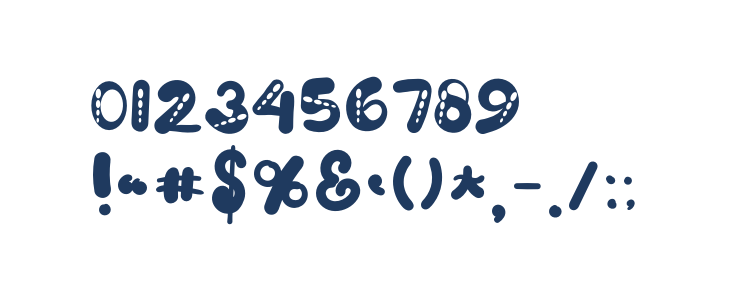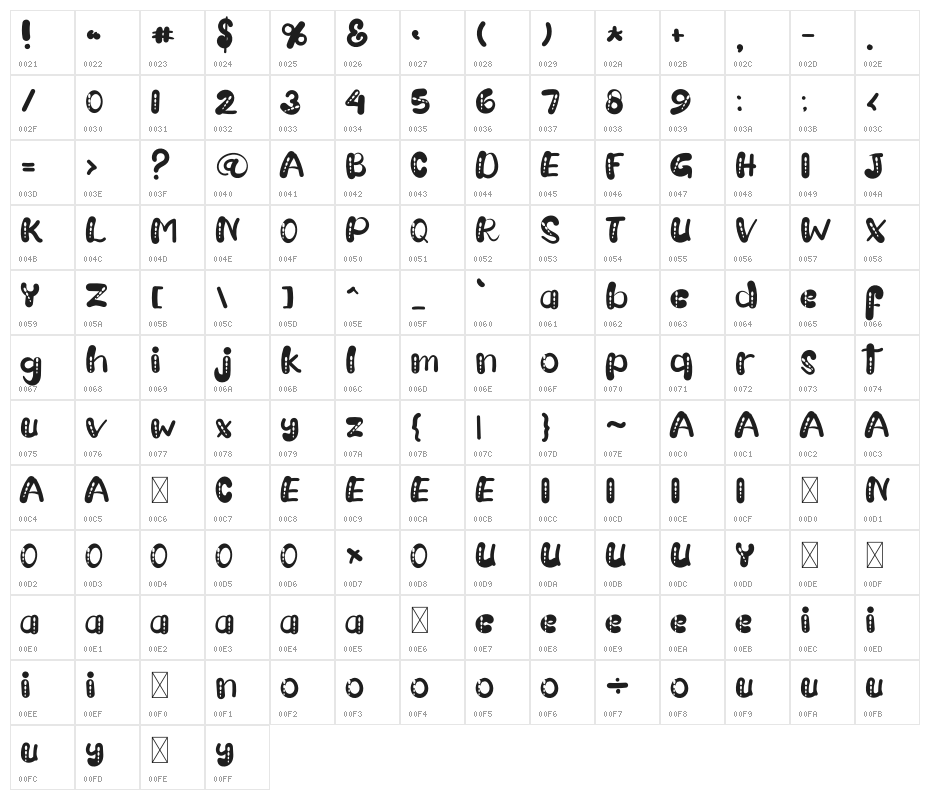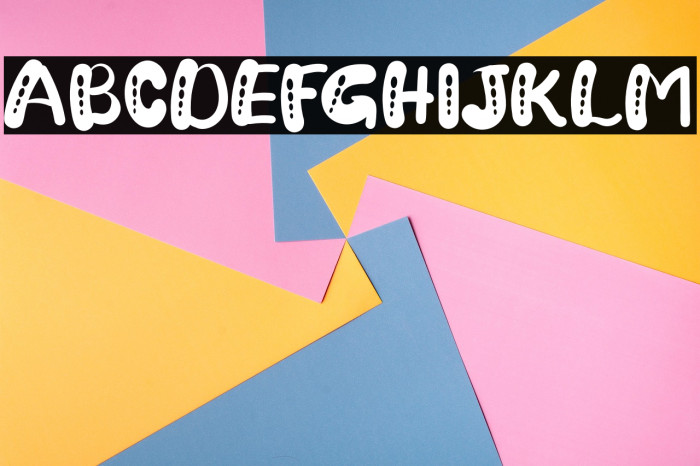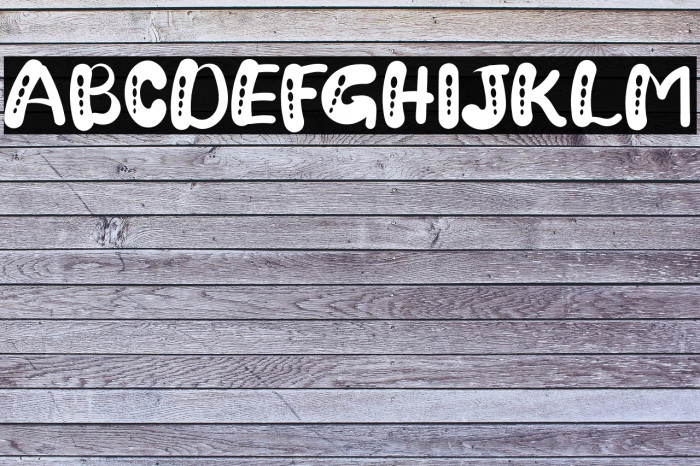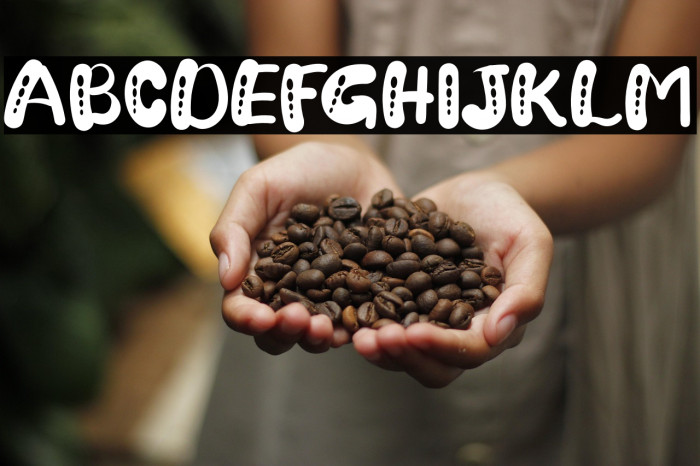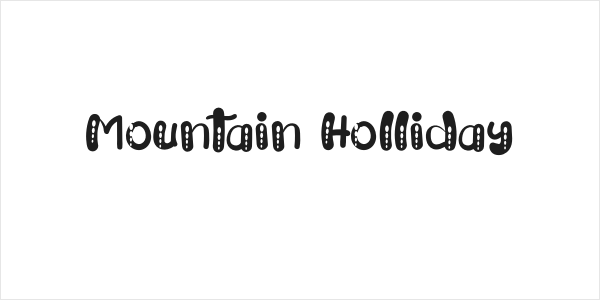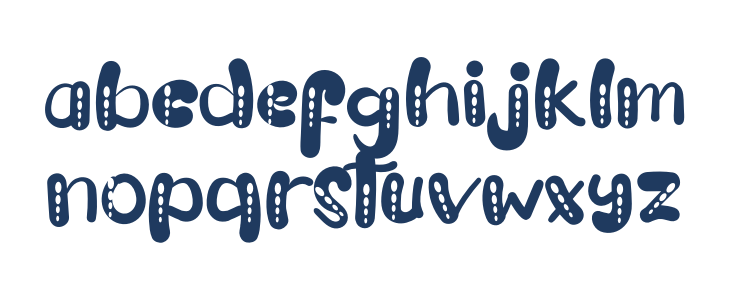
Mountain Holliday Font
Mountain Holliday Description
This playful and whimsical font features bold, rounded characters with a unique dotted pattern inside each letter, adding a touch of fun and creativity. The letters are slightly irregular, giving them a hand-drawn appearance that enhances their charm. The font includes both uppercase and lowercase letters, numbers, and a variety of special characters, making it versatile for different design needs. Its bold strokes and decorative elements make it stand out, perfect for eye-catching designs.